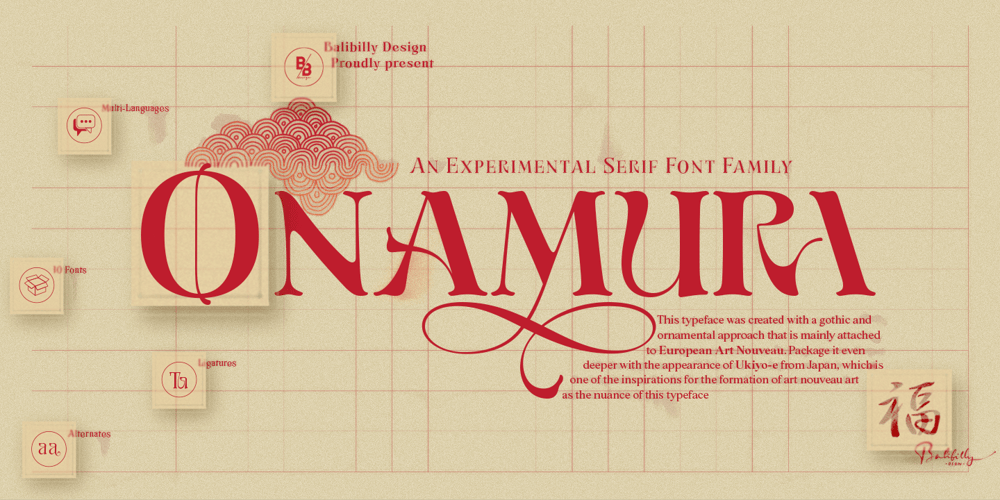
Onamura Font Family was designed by I Wayan Bill Natih and published by Balibilly Design. Onamura contains 11 styles and family package options. Initially, letterform was inspired by the gothic style of Romance decorative letters in transitional art in the Middle Ages. The conservative type in the Gothic era, especially in decorative romance, has led to the Victorian style being embedded in several forms as accents related but not forced to be combined. Rounded serif seems conventional combined with historically relevant letterform to create a harmonious blend. The art nouveau style also inspires this typeface. Approach to architectural ornamentation from 1880 to 1915, adopting the dynamic lines and curves typical of the civilization of the time. Continue time travel; we also present a more modern form influenced by the digitalization of art nouveau derivatives, familiarly called the psychedelic style.Paying homage to predecessors, we presented The Onamura font in a Japanese Ukiyo-e style that influenced the fine arts movement that broke old conservative art in Europe.We designed this font carefully with the information about the Middle Ages, Ukiyo-E, & Art Nouveau that greatly influenced art worldwide. In this font family, there are collaboration vibes. Both are the basis of the phenomenal blend of idealism between western and Japanese artists.Consisting of 10 fonts in 10 weights, it features an extended charset of over 850 glyphs, covering multilingual support, including Western European, Central European, and Southeastern European. Complete with advanced open type features like stylistic alternates, discretionary ligatures, ordinals, small caps, fractions, and case-sensitive forms.The elegant and refined details seen in this font provide a new aesthetic input, satisfy contemporary style, and give a range of choices for luxury typographic projects. This font is perfectly suited for high-impact headlines. Advance open-type features are stunning on logos, branding, magazines, website, etc.Supports languages: Afrikaans, Albanian, Asu, Basque, Bemba, Bena, Bosnian, Catalan, Cebuano, Chiga, Colognian, Cornish, Corsican, Croatian, Czech, Danish, Dutch, English, Estonian, Faroese, Filipino, Finnish, French, Friulian, Galician, Ganda, German, Gusii, Hungarian, Icelandic, Ido, Inari Sami, Indonesian, Interlingua, Irish, Italian, Javanese, Jju, Jola-Fonyi, Kabuverdianu, Kalaallisut, Kalenjin, Kinyarwanda, Kurdish, Latvian, Lithuanian, Lojban, Low German, Lower Sorbian, Luo, Luxembourgish, Luyia, Machame, Makhuwa-Meetto, Makonde, Malagasy, Malay, Maltese, Manx, Maori, Morisyen, North Ndebele, Northern Sami, Northern Sotho, Norwegian Bokmål, Norwegian Nynorsk, Nyanja, Nyankole, Occitan, Oromo, Polish, Portuguese, Romanian, Romansh, Rombo, Rundi, Rwa, Samburu, Sango, Sangu, Sardinian, Scottish Gaelic, Sena, Shambala, Shona, Slovak, Slovenian, Soga, Somali, South Ndebele, Southern Sotho, Spanish, Swahili, Swati, Swedish, Swiss German, Taita, Taroko, Teso, Tsonga, Tswana, Turkish, Turkmen, Upper Sorbian, Vunjo, Walloon, Welsh, Western Frisian, Wolof, Xhosa, Zulu